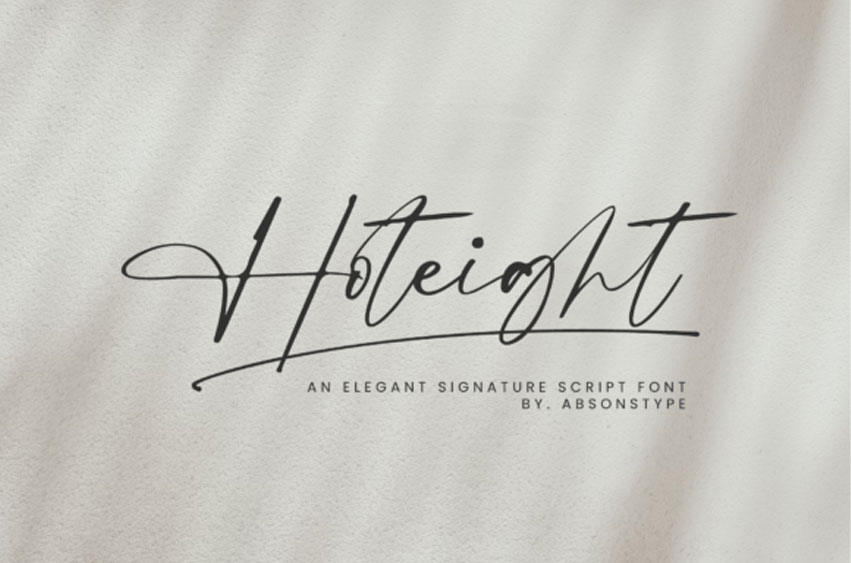
Hoteight Font is an elegant signature script font with a wide, balanced style combining a sleek sans look with a modern script feel.
Enhanced with ligatures, it adds a smooth flow to each letter, making designs look polished and stylish. This font is ideal for headlines, logos, posters, packaging, T-shirts, branding, and more.